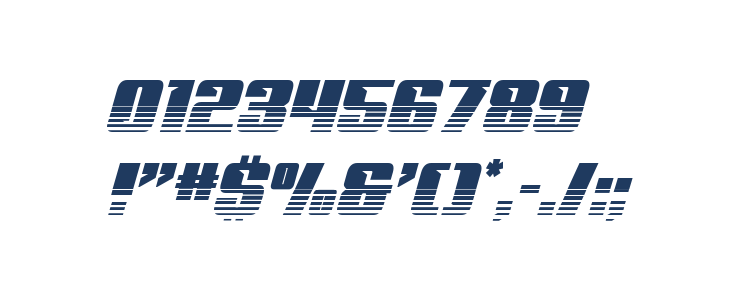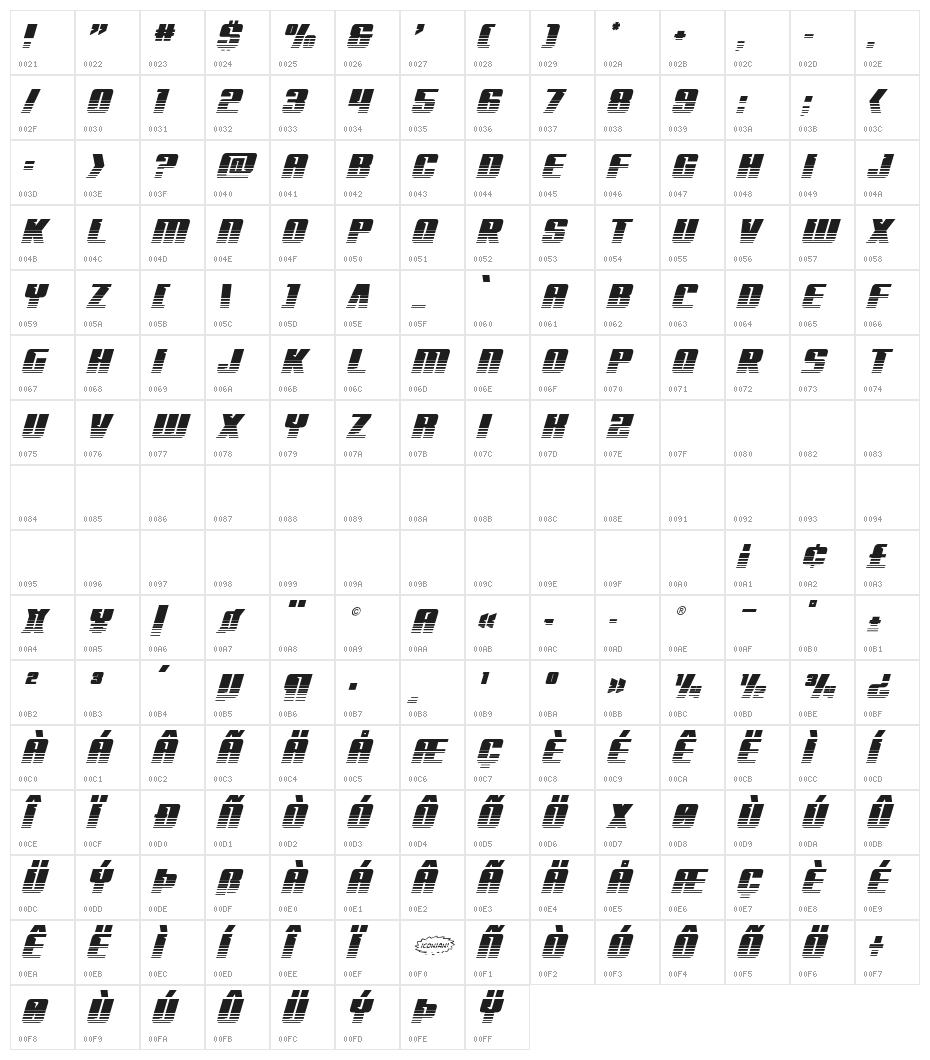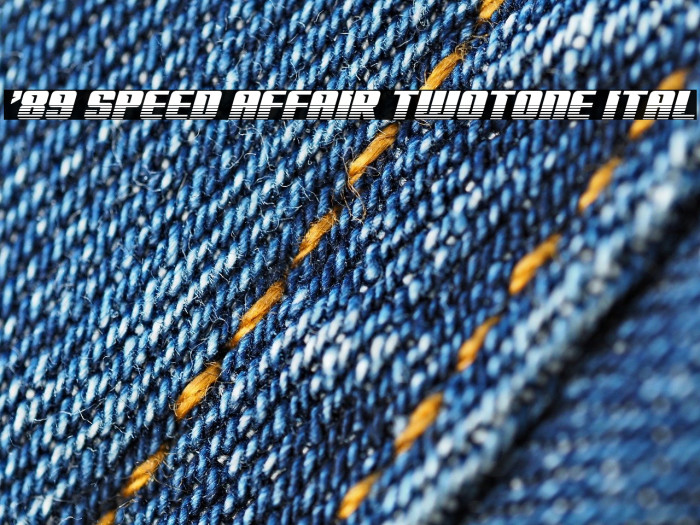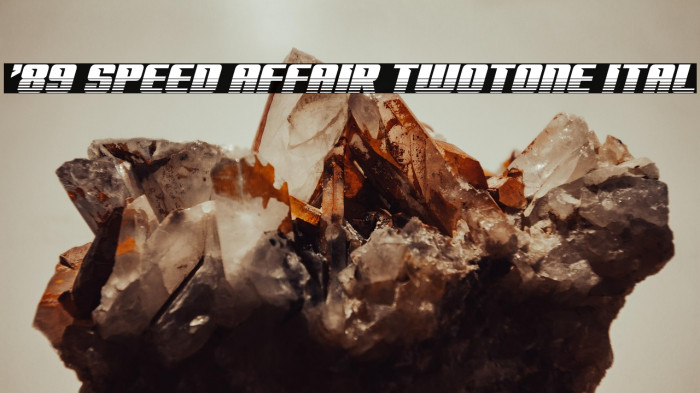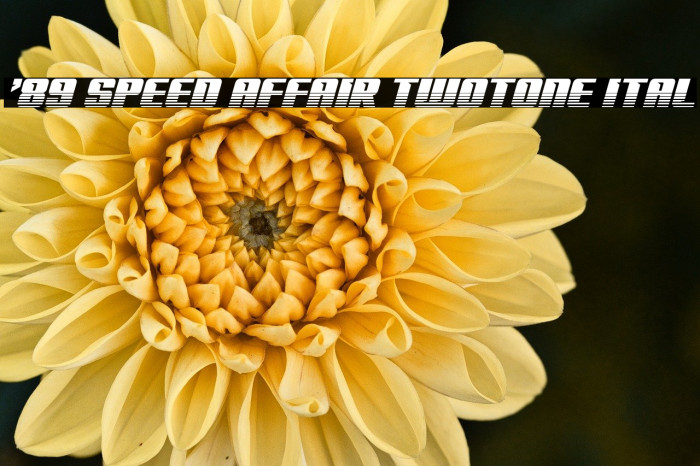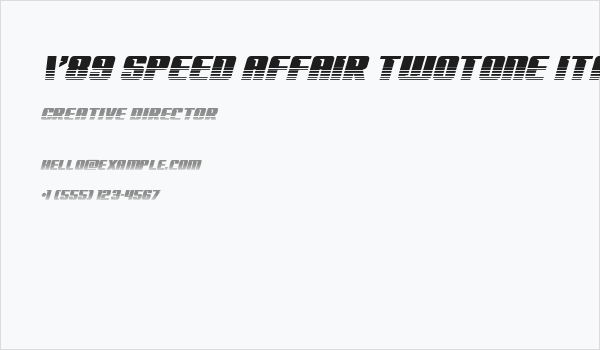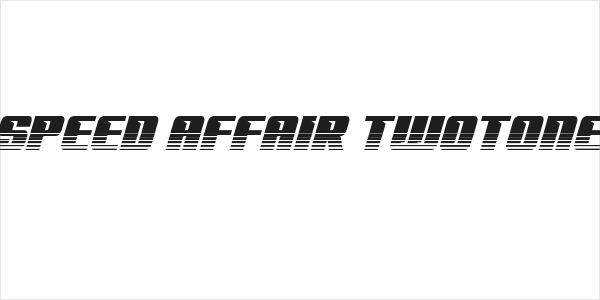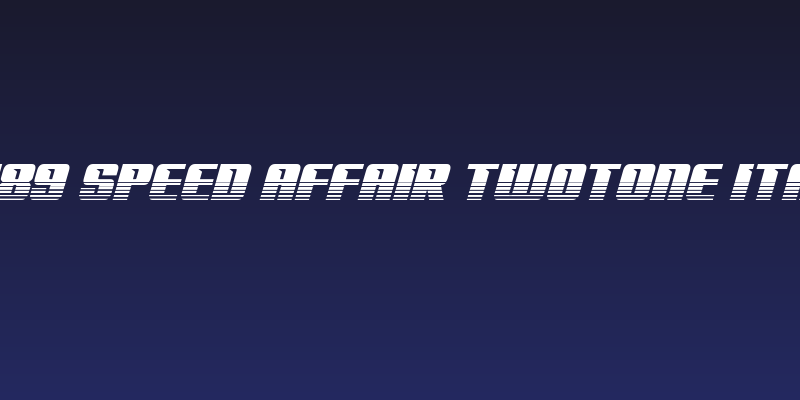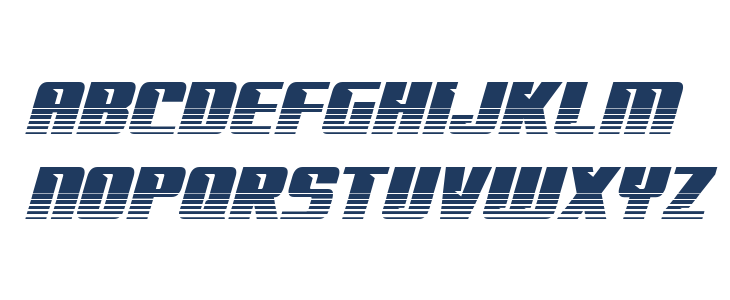
'89 Speed Affair Twotone Ital Font
'89 Speed Affair Twotone Ital Description
This font features a dynamic and energetic design, characterized by its bold, italicized letters with a unique two-tone effect. The horizontal lines cutting through each character create a sense of motion and speed, making it ideal for projects that require a modern and fast-paced aesthetic. The uppercase and lowercase letters, along with numbers and special characters, maintain a consistent style that emphasizes movement and energy. The font's distinct appearance is suitable for eye-catching headlines and branding that demands attention.
Proposed ProjectsIdeal for sports branding, automotive advertisements, dynamic posters, and modern digital media.